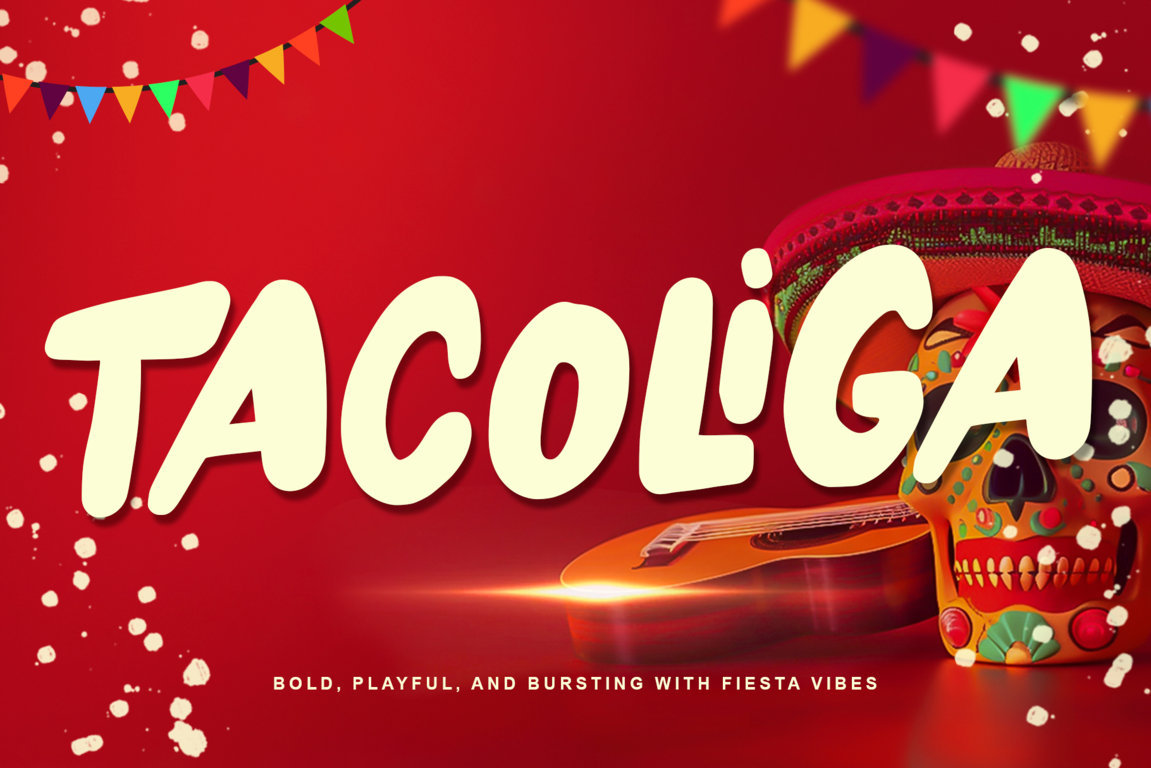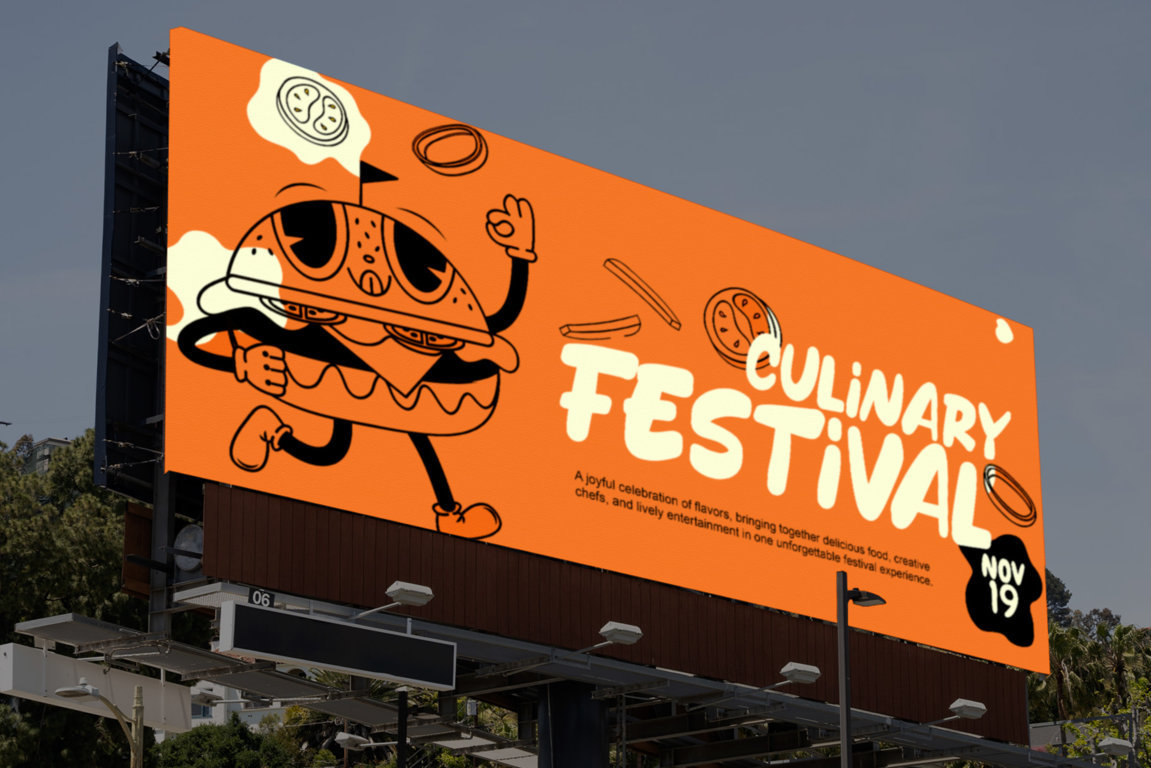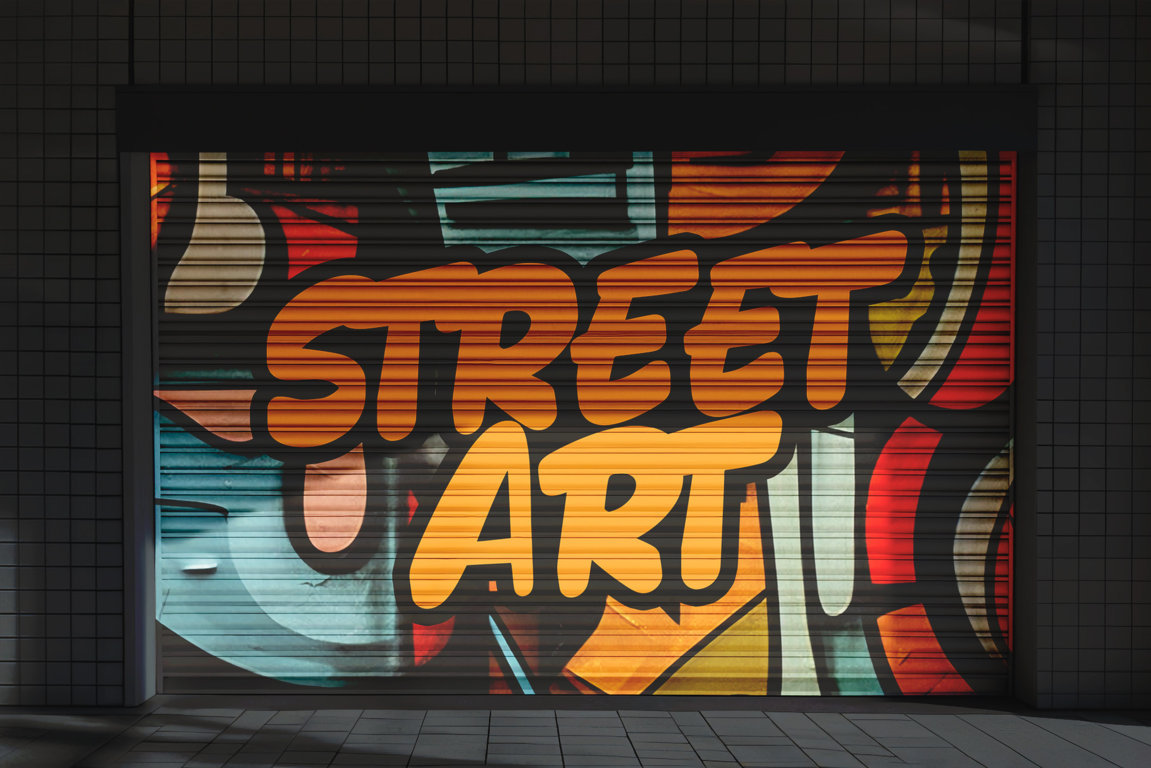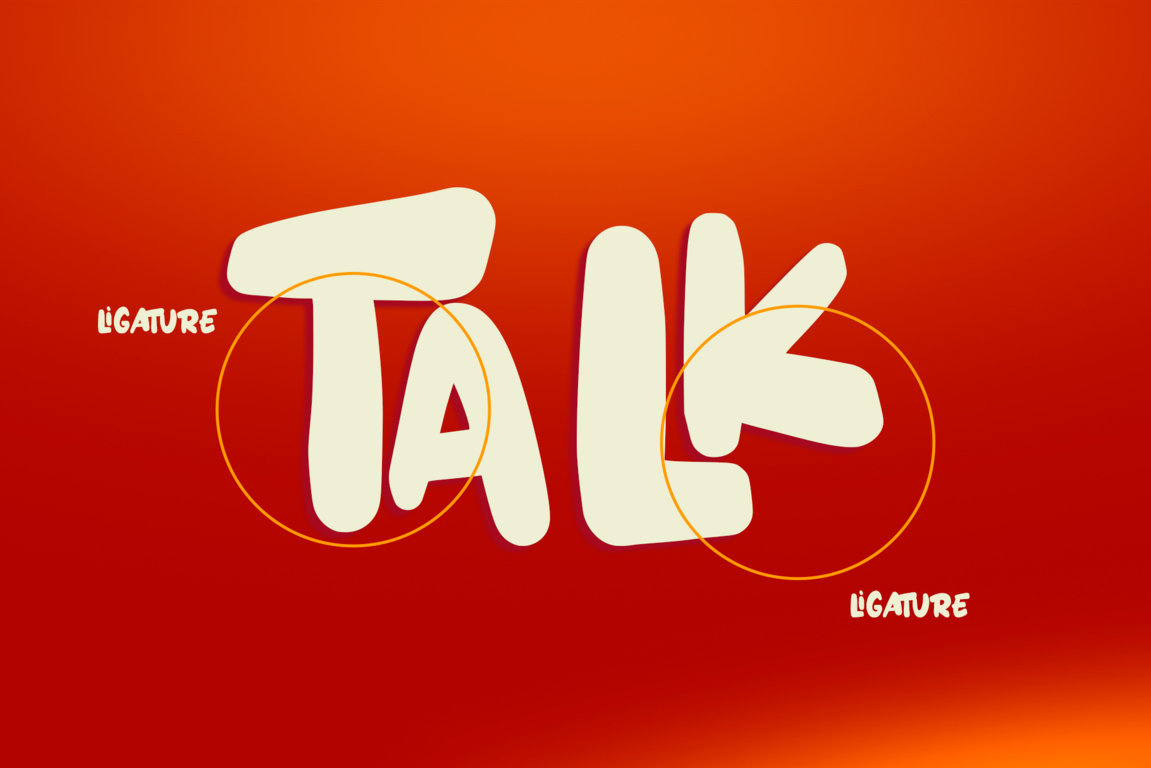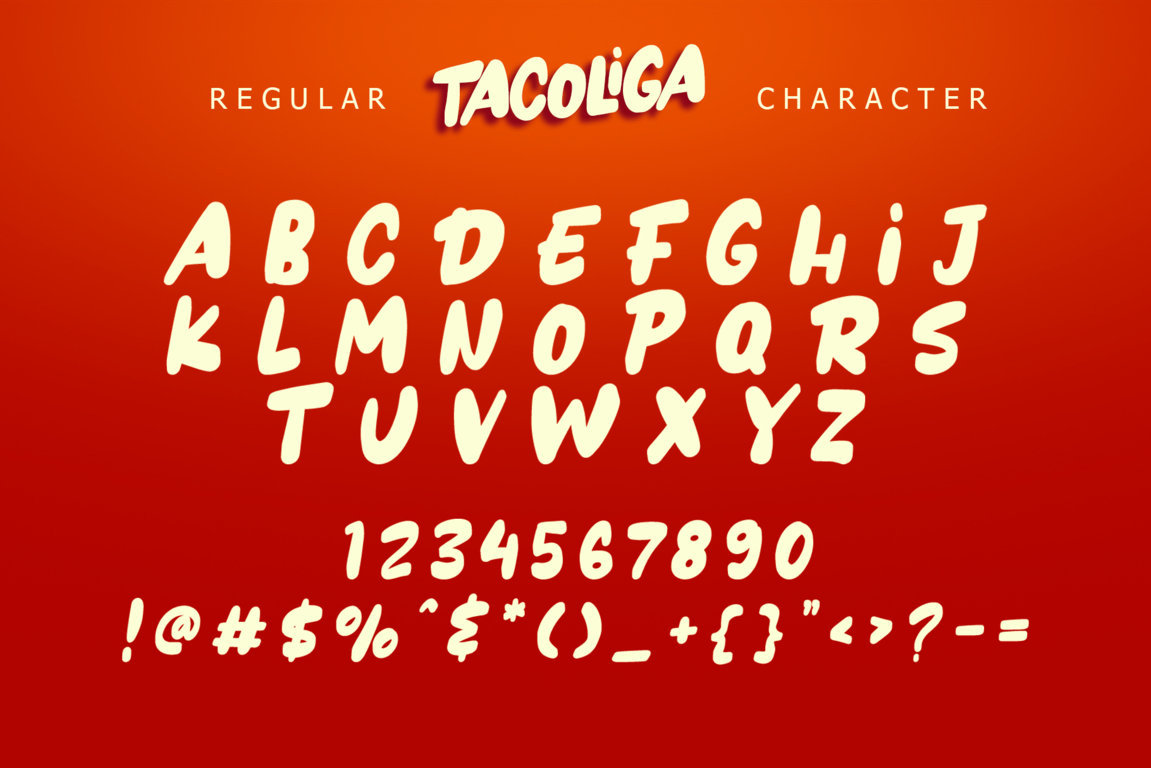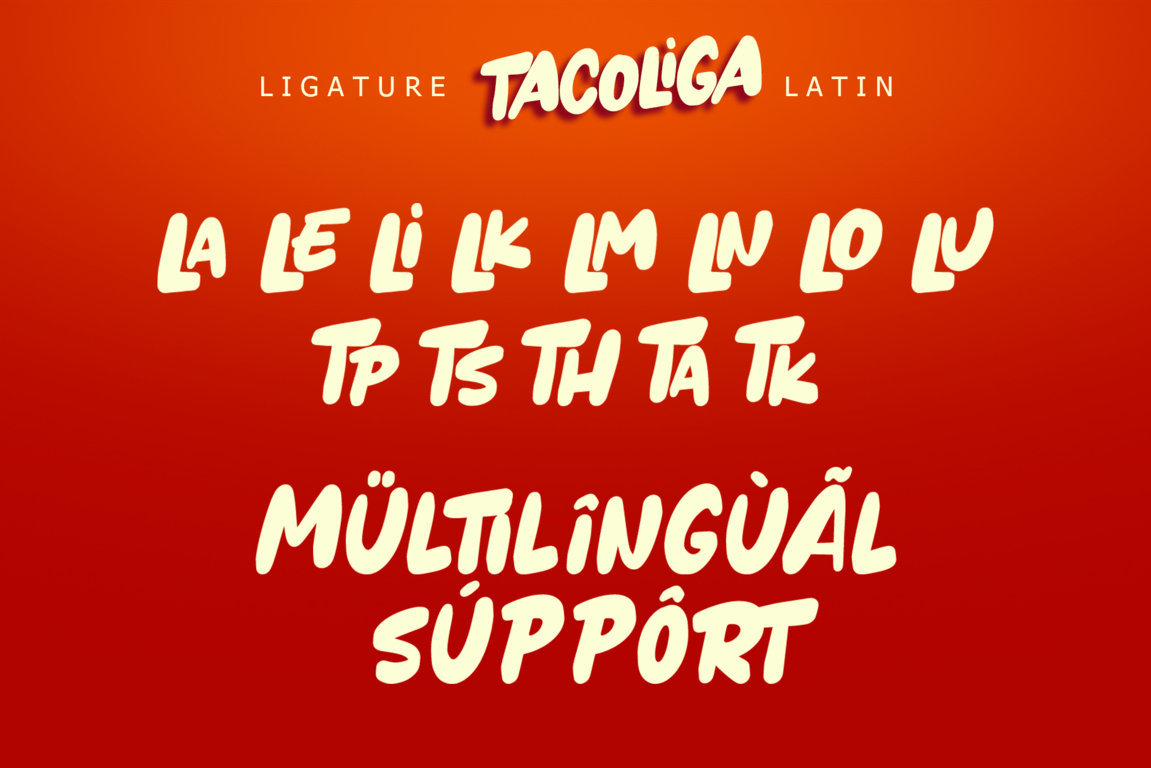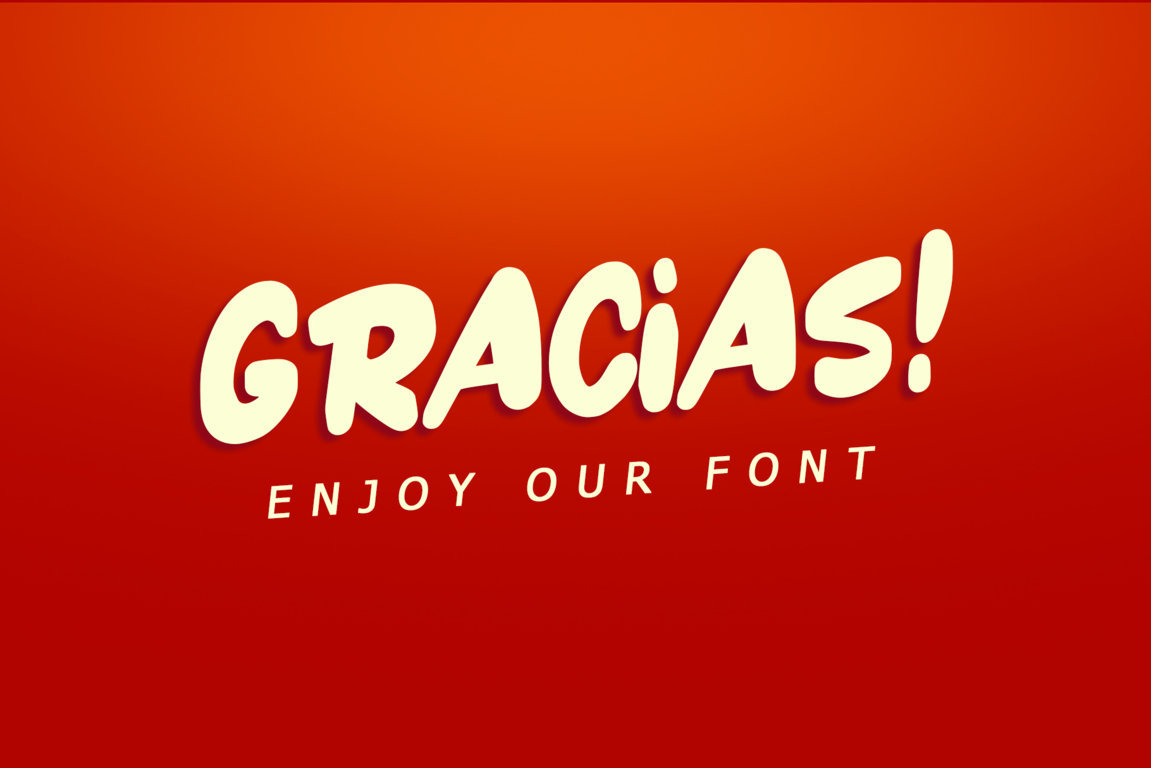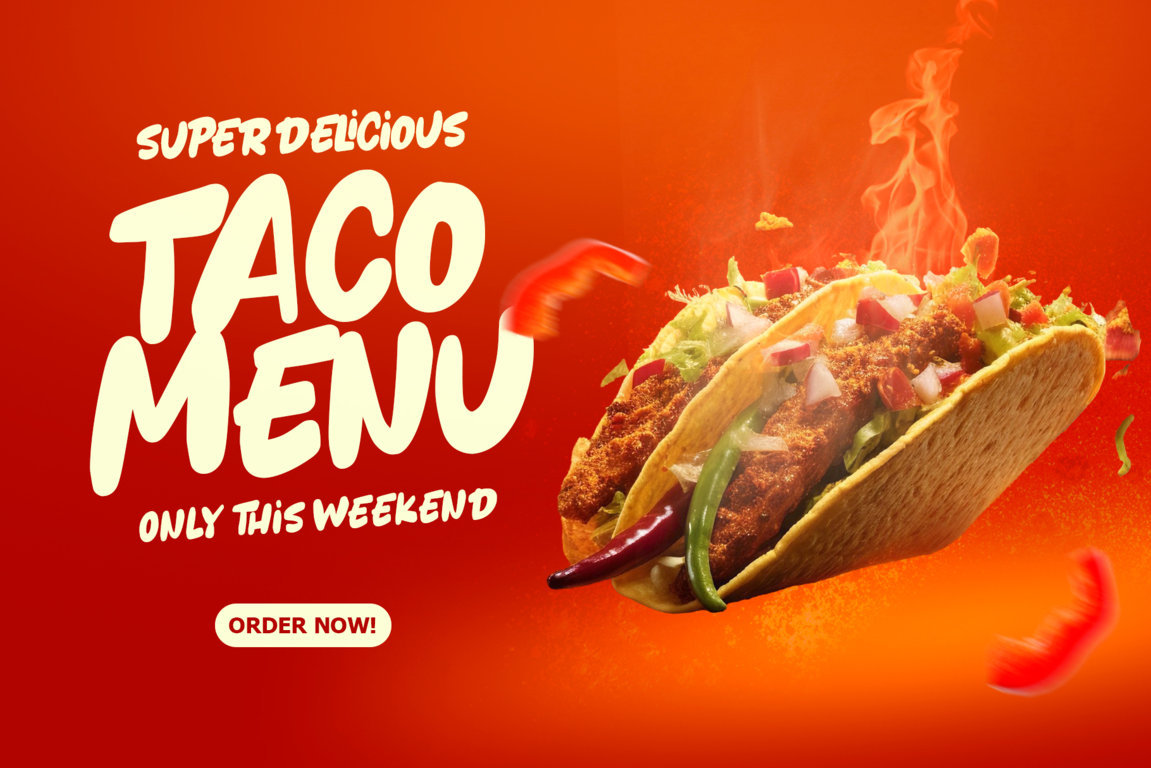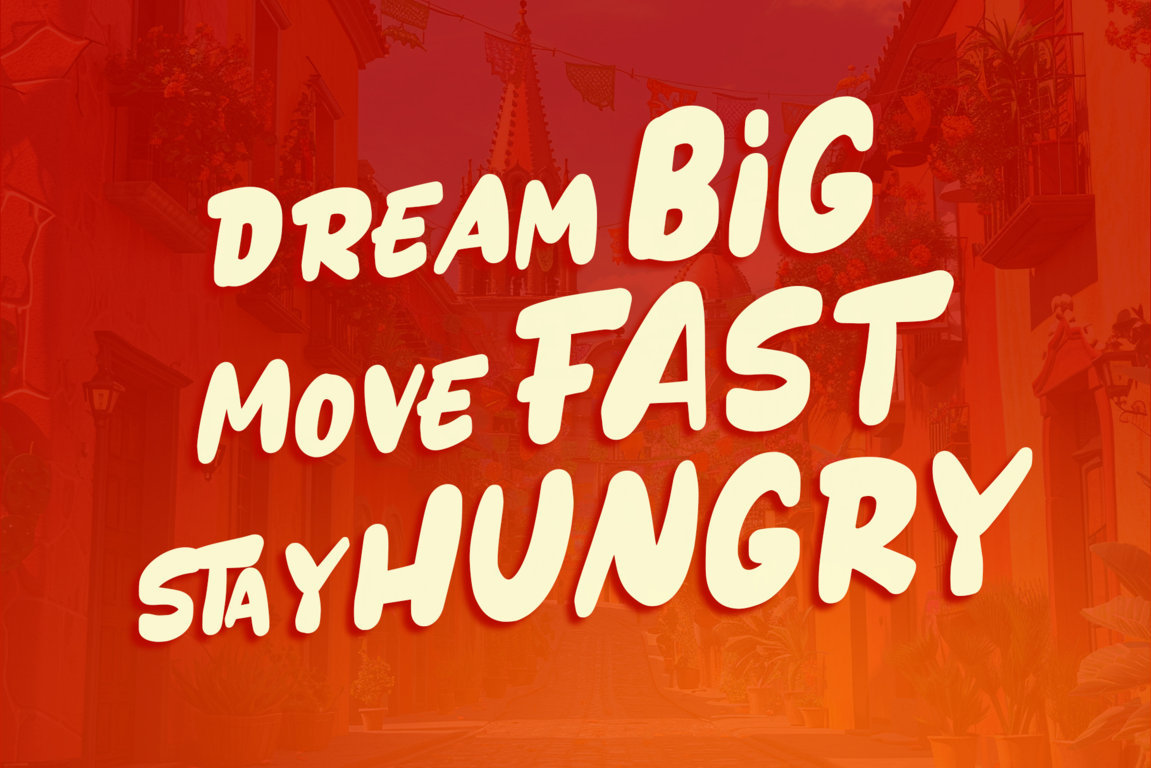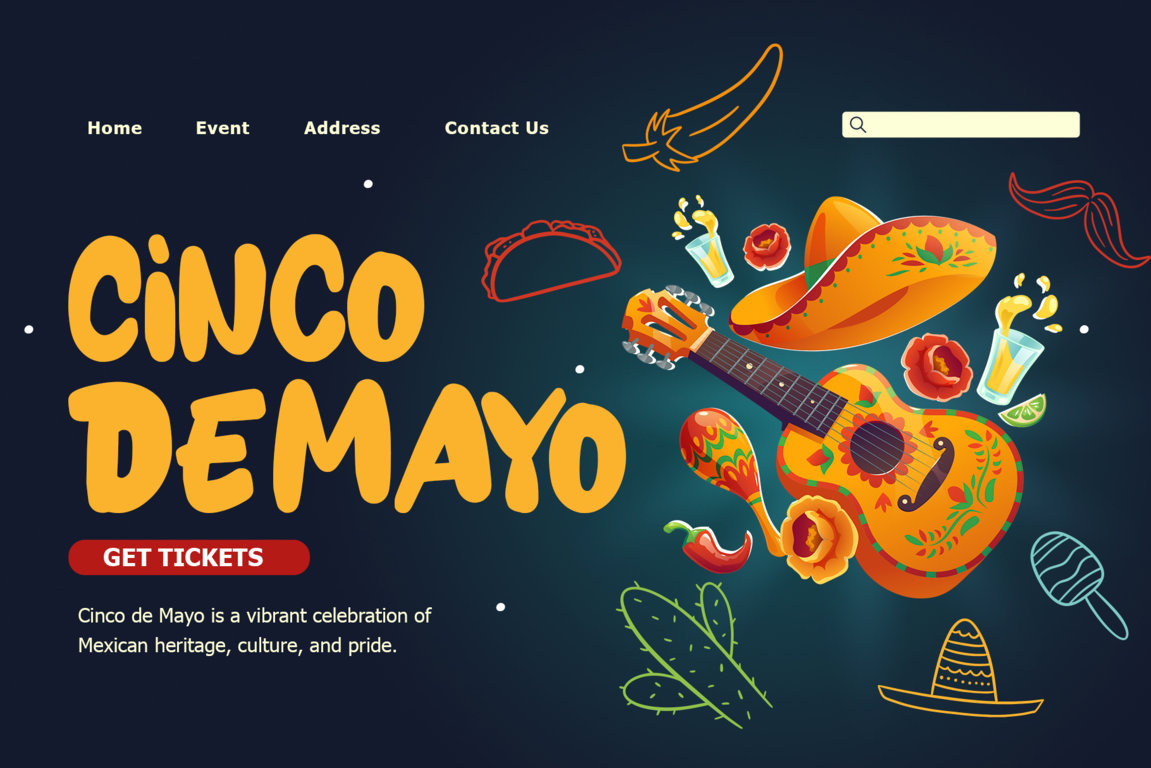
Tacoliga – Bold Playful Display Font
Introducing Tacoliga, a bold and playful display font designed to deliver strong visual impact with a friendly, modern personality. Featuring chunky letterforms, rounded shapes, and a dynamic rhythm, Tacoliga creates eye-catching typography that feels energetic, confident, and highly readable across various design applications.
Built for versatility, Tacoliga performs beautifully in branding, posters, packaging, headlines, social media graphics, marketing materials, and creative display projects. Its bold structure and lively flow help transform ordinary text into expressive visual statements, making designs feel engaging, modern, and memorable.
• Uppercase & lowercase letters
• Ligatures
• Numerals & punctuation
• Multilingual support: ä ö ü Ä Ö Ü ß ¿ ¡